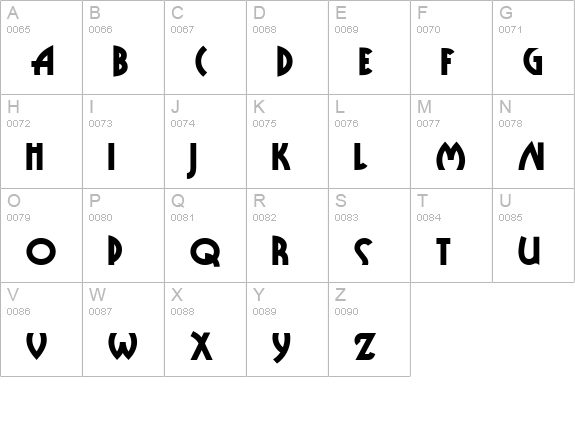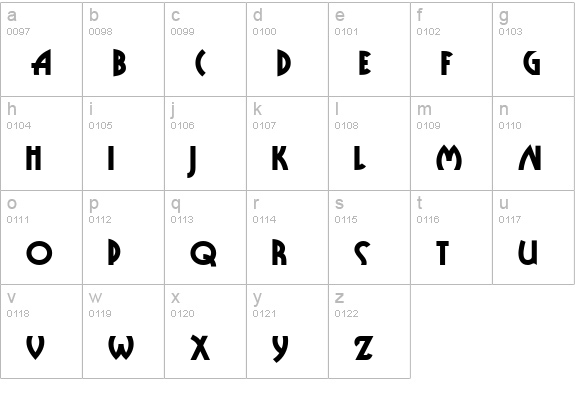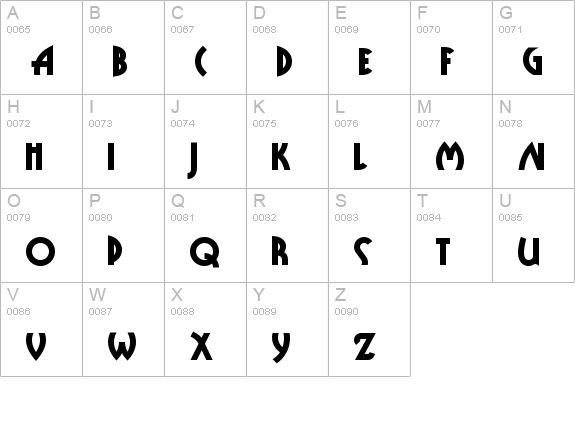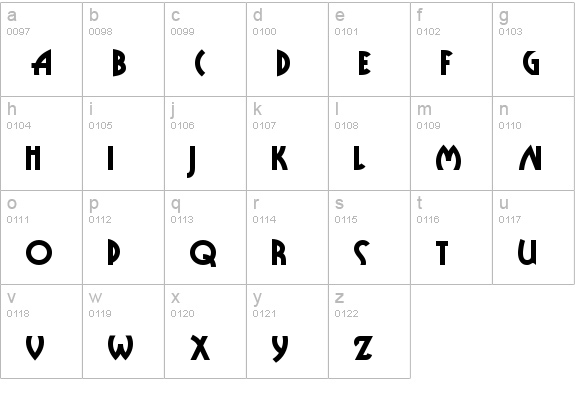
Public Enemy NF font is a bold and impactful display typeface that commands attention with its strong, sharp lines and distinctive character. This font exudes a sense of power and authority, making it perfect for headlines, posters, and other high-impact design projects. Its striking appearance is sure to make your text stand out and leave a lasting impression on viewers. What sets Public Enemy NF font apart is not just its bold design, but also the fact that it is available for free download at FontsMarket.com. This means that you can easily access this powerful font and use it in your projects without any cost involved. Whether you're a designer looking to add a touch of boldness to your designs or a business owner wanting to make a strong visual statement, Public Enemy NF font is a versatile and accessible choice. Download it today and unleash its bold energy in your creative works.